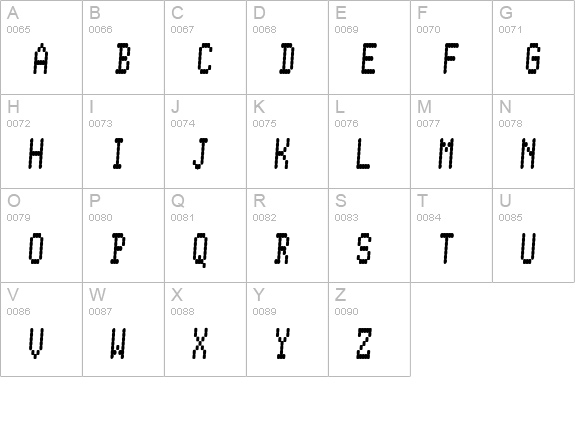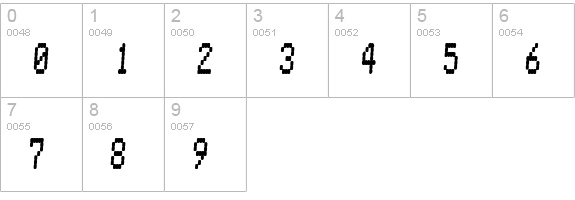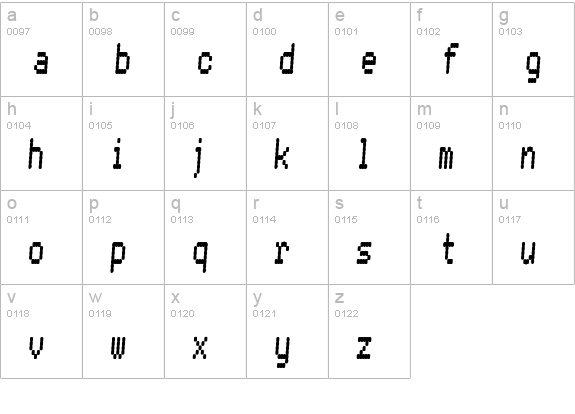
Conman fat Font Details
Conman fat font is a bold and eye-catching typeface that exudes confidence and charisma. With its thick, chunky letterforms and modern style, this font is perfect for making a statement in your designs. Whether you're creating posters, logos, or social media graphics, Conman fat font will grab attention and leave a lasting impression. The best part? Conman fat font is completely free to download at FontsMarket.com. You can add this versatile font to your collection without any cost, making it a valuable resource for all your creative projects. Stand out from the crowd and showcase your unique style with Conman fat font today!